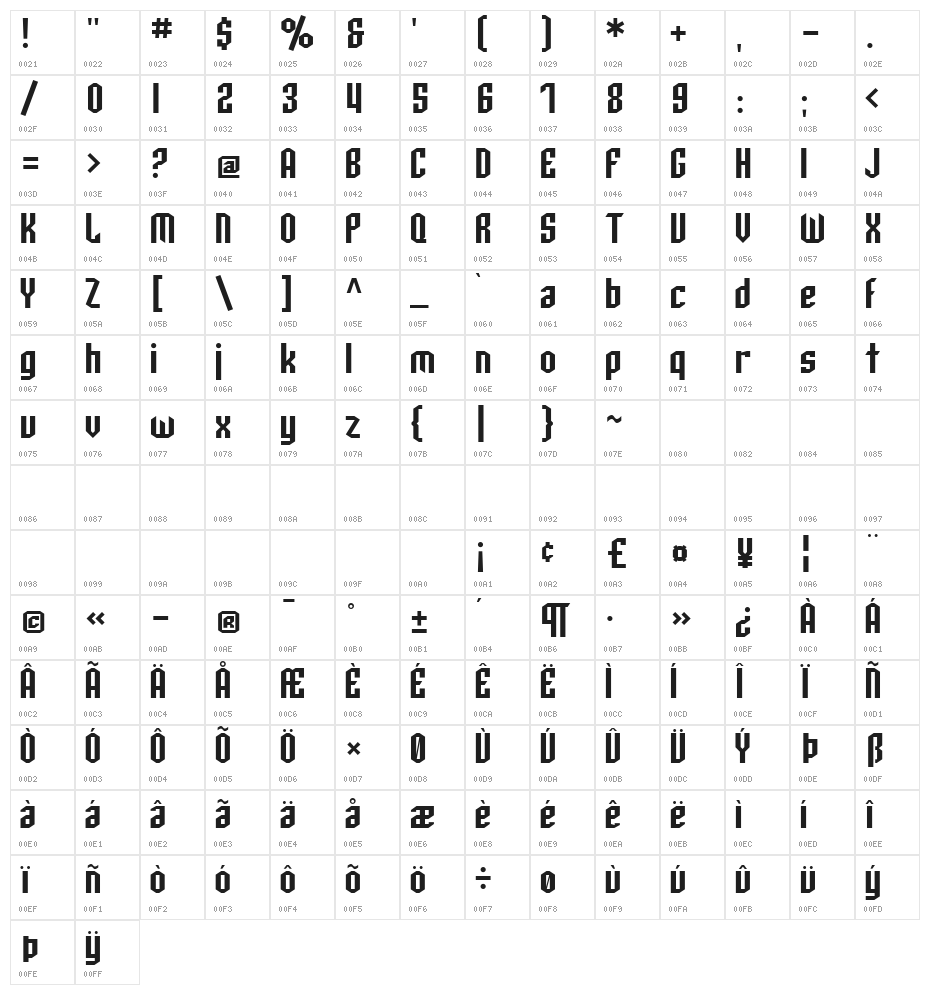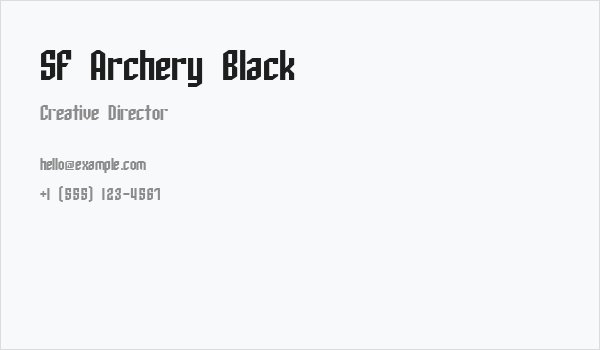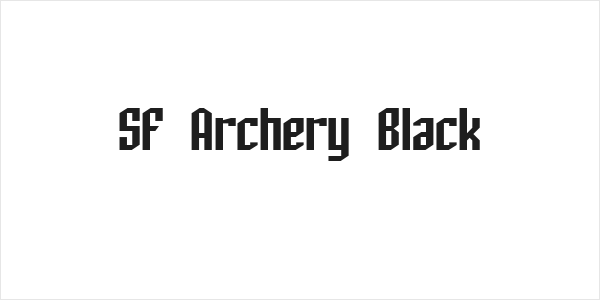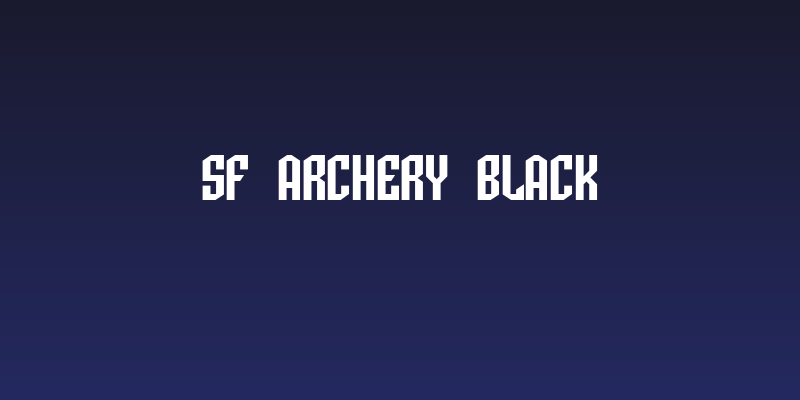
SF Archery Black Font
SF Archery Black Description
This font features a bold, geometric design with sharp angles and a strong presence. The uppercase and lowercase letters maintain a consistent height, creating a uniform appearance. The characters are constructed with thick strokes and minimal curves, emphasizing a modern and industrial aesthetic. The numbers and special characters follow the same design principles, ensuring cohesion across all elements. The font's style is reminiscent of architectural structures, conveying strength and stability.
| Proposed Projects | Ideal for branding, posters, and signage where a strong, impactful statement is needed. |